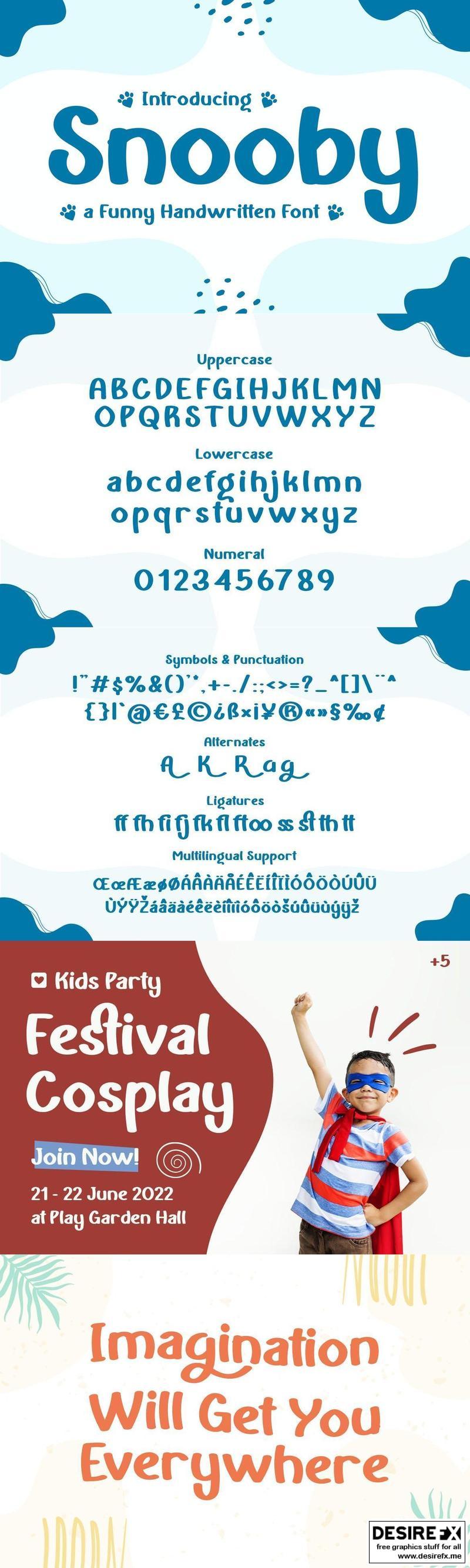
Snooby – a Funny Handwritten Font 2V2LUJV
Snooby is a funny and modern handwritten font, carefully handcrafted to become a true favorite.
This font will look outstanding in any context, whether it’s being used on busy backgrounds or as a standalone headline!
Features:
– Uppercase
– Lowercase
– Symbols & Punctuation
– Numeral
– Ligature
– Alternate
– Multilingual Support